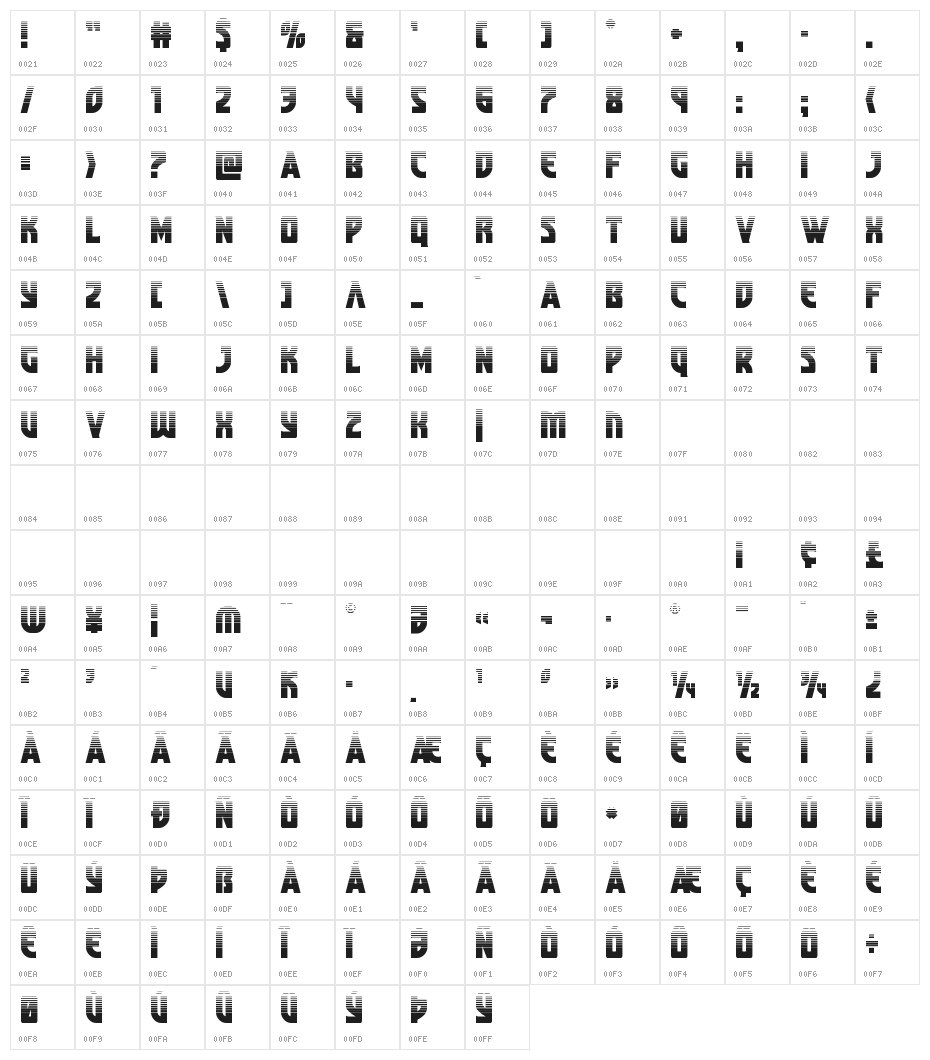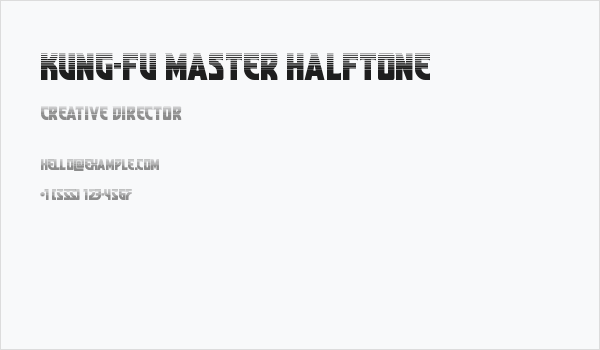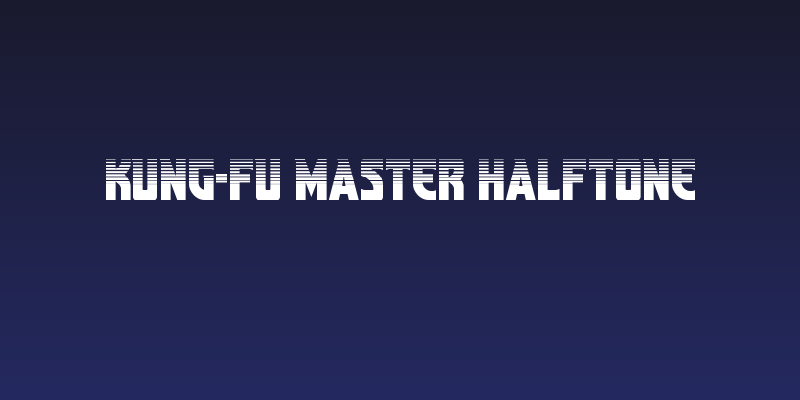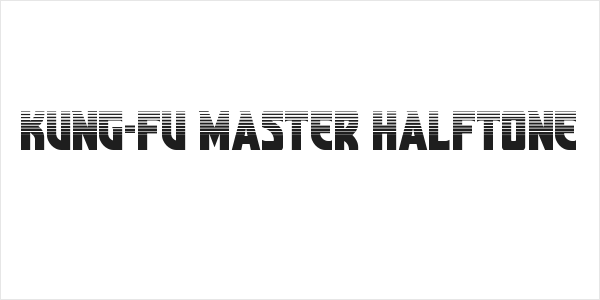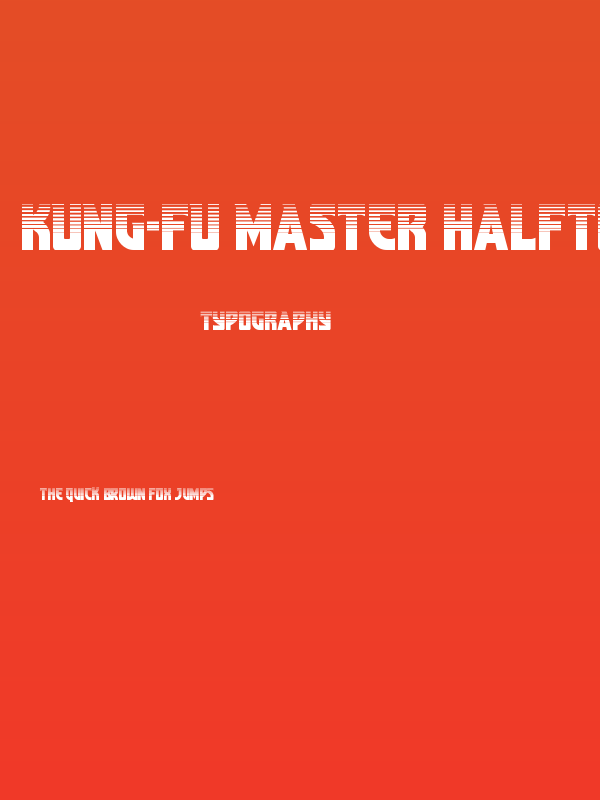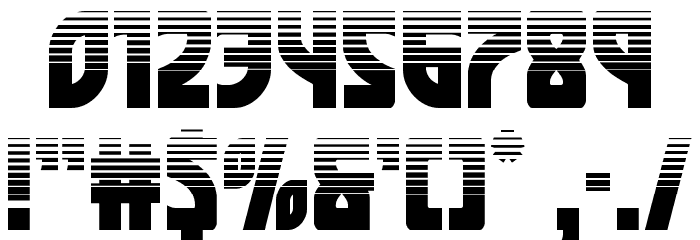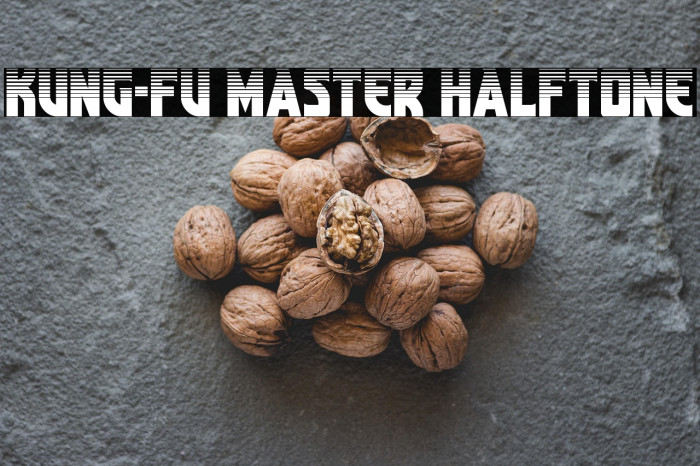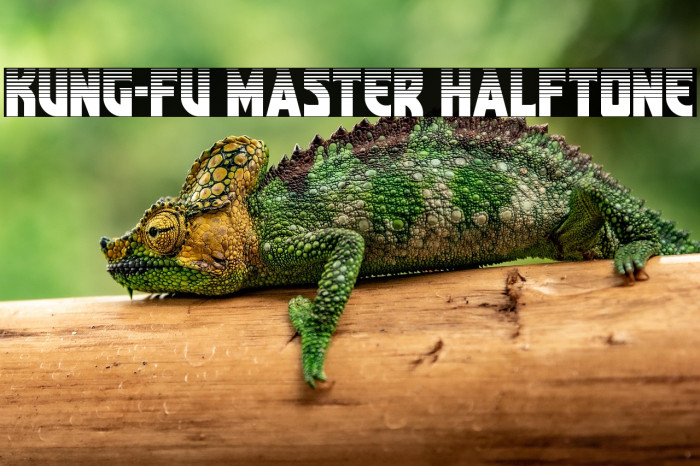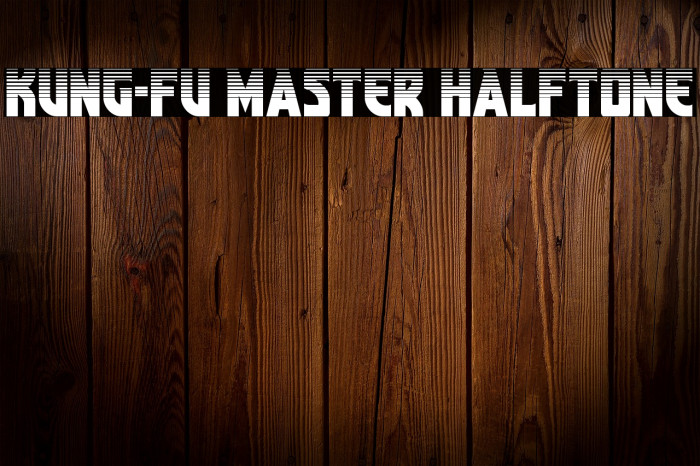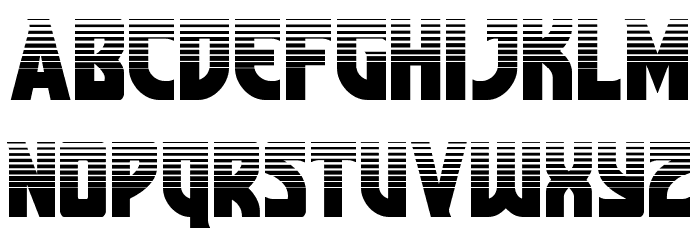
Kung-Fu Master Halftone Font
Kung-Fu Master Halftone Description
This font features a bold, dynamic design with a halftone effect that creates a sense of movement and energy. The uppercase letters are characterized by strong, geometric shapes with horizontal lines that give a sense of speed and modernity. The numbers and special characters follow the same design principles, making them cohesive with the overall style. The font's unique appearance makes it stand out, ideal for projects that require a striking visual impact.
| Proposed Projects | This font is perfect for posters, video game titles, sports branding, and any project that needs a bold, energetic look. |